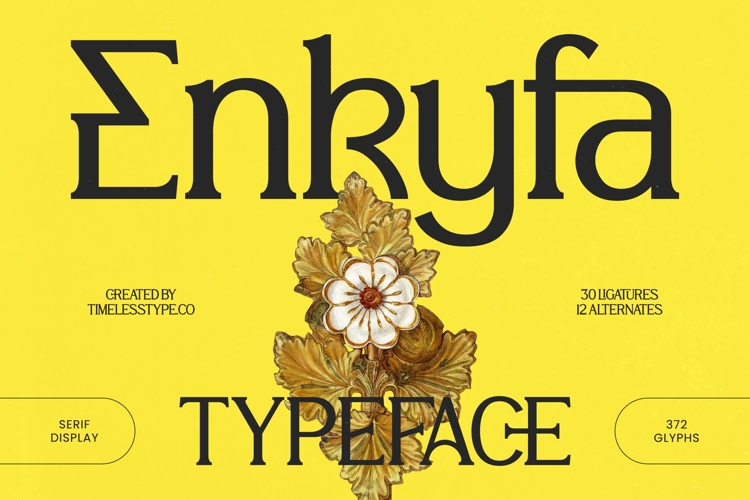
Enkyfa Serif Display Typeface
Enkyfa – Serif Display Typeface is a masterclass in modern serif design, blending classical proportions with avant-garde flair. This high-contrast typeface commands attention with its sharp serifs and refined letterforms, offering a visual language that is both authoritative and artistic. Designers will find Enkyfa – Serif Display Typeface an indispensable asset for creating striking headlines and memorable visual identities.
Designed for high-impact visual storytelling, this typeface is perfectly suited for luxury branding, high-end packaging, and editorial design. Whether utilized for magazine mastheads or premium logo design, Enkyfa – Serif Display Typeface ensures your message is delivered with unmatched clarity and artistic grace. Its collection of 30 ligatures and 12 alternates allows for bespoke typography, making it the ideal choice for projects requiring a couture aesthetic.
Reach a worldwide audience with ease using a tool built for the modern era. With its extensive multilingual support, Enkyfa – Serif Display Typeface adapts seamlessly across global markets, making it incredibly versatile for international projects. Featuring a robust set of 372 glyphs, this serif display typeface supports various Latin-based languages, ensuring that your brand voice remains consistent. The precision of Enkyfa – Serif Display Typeface ensures typographic excellence in both digital and print environments.